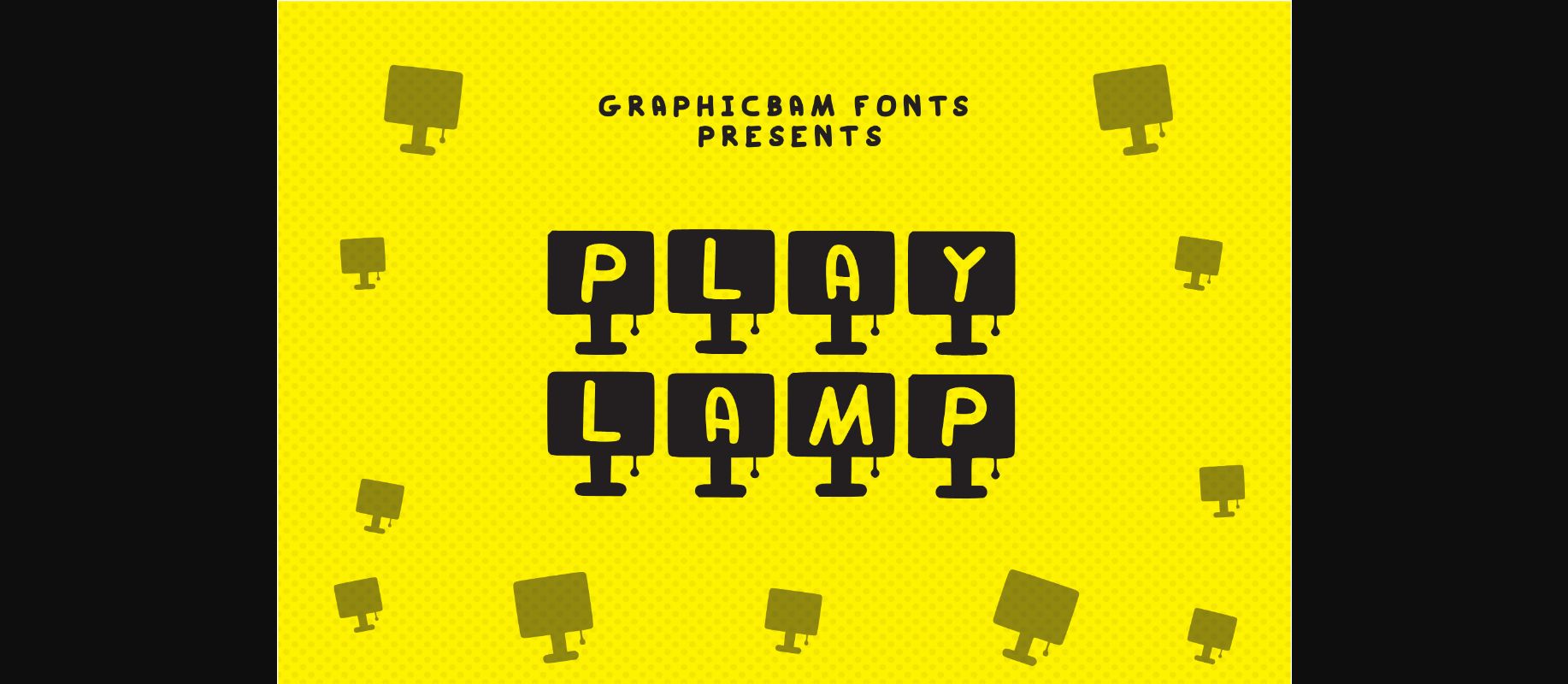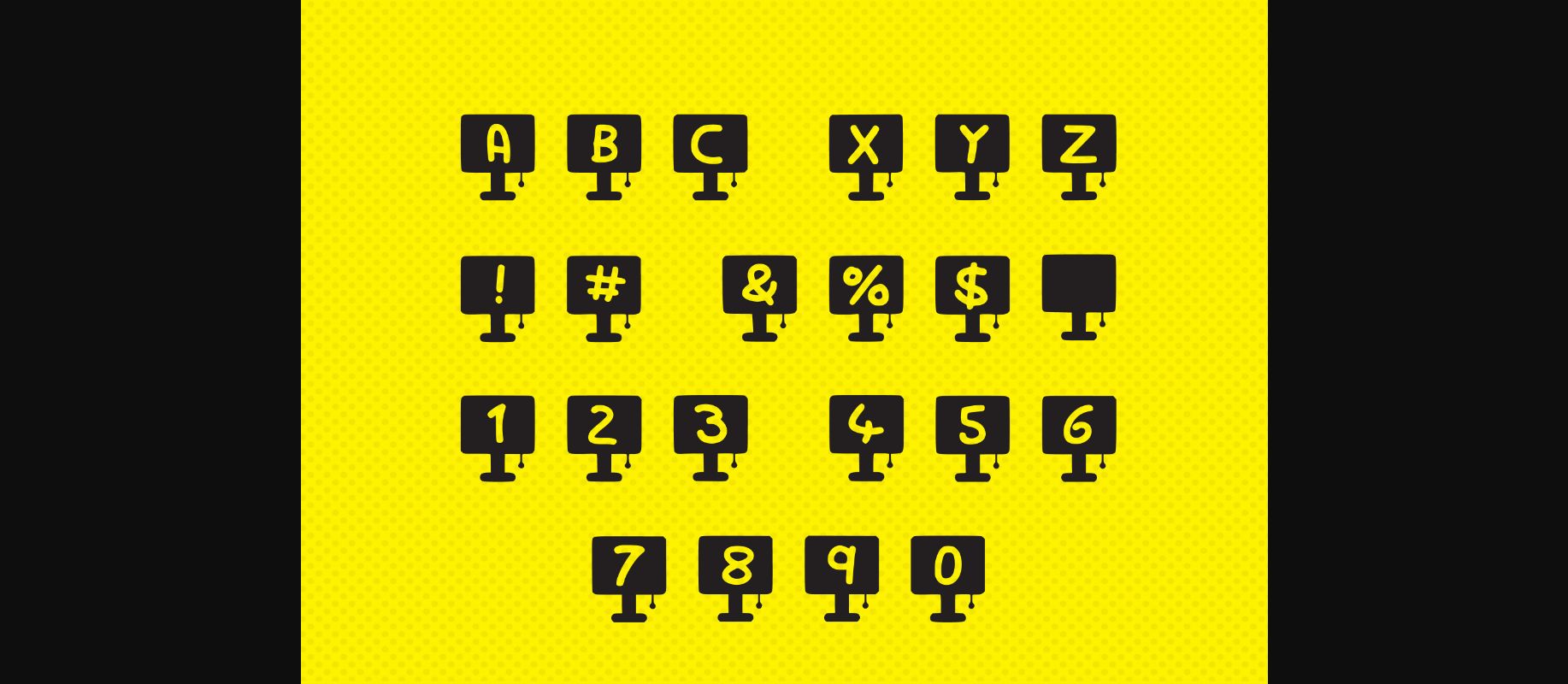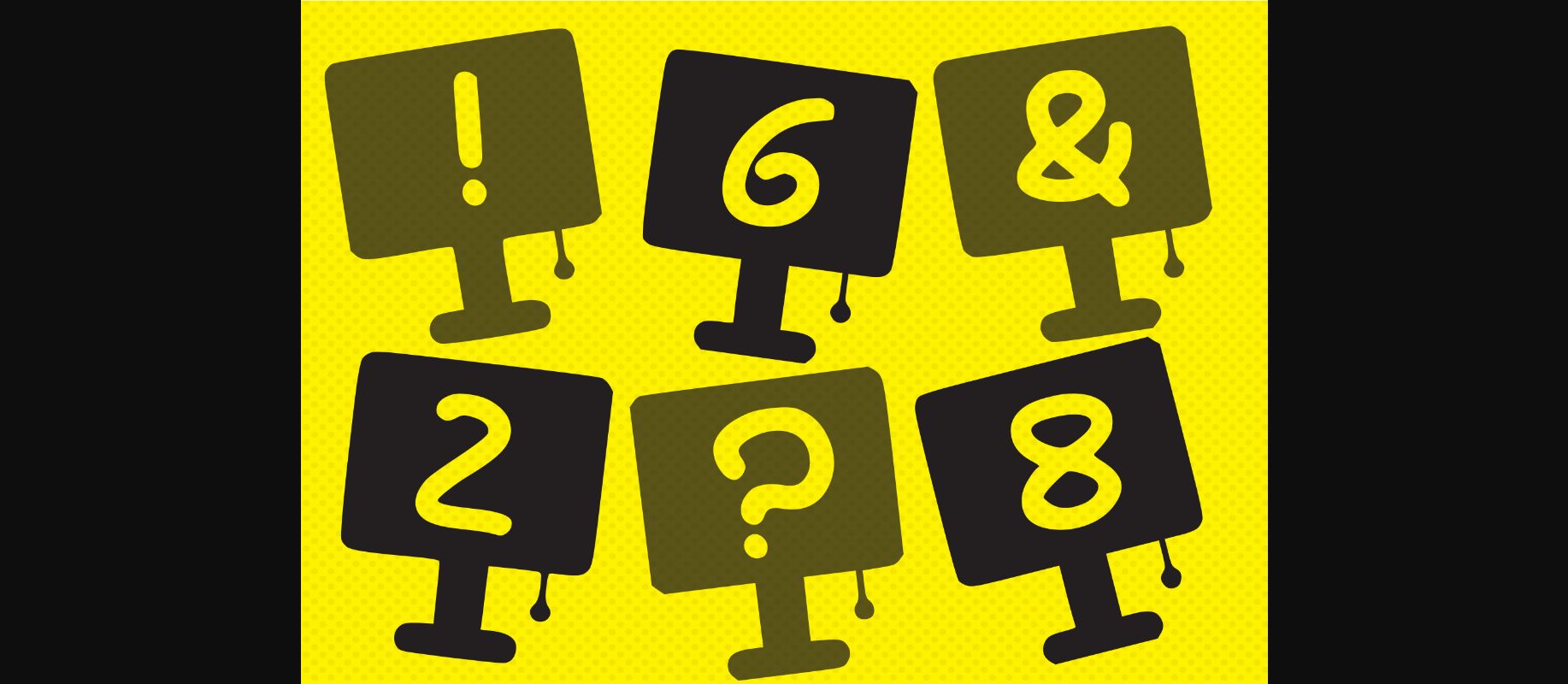
About Play Lamp Font
Brighten up your designs with Play Lamp – a lovely decorative font filled with lamps and cute letters! Use this typeface for big text, headlines, covers, titles, or other bold ideas.